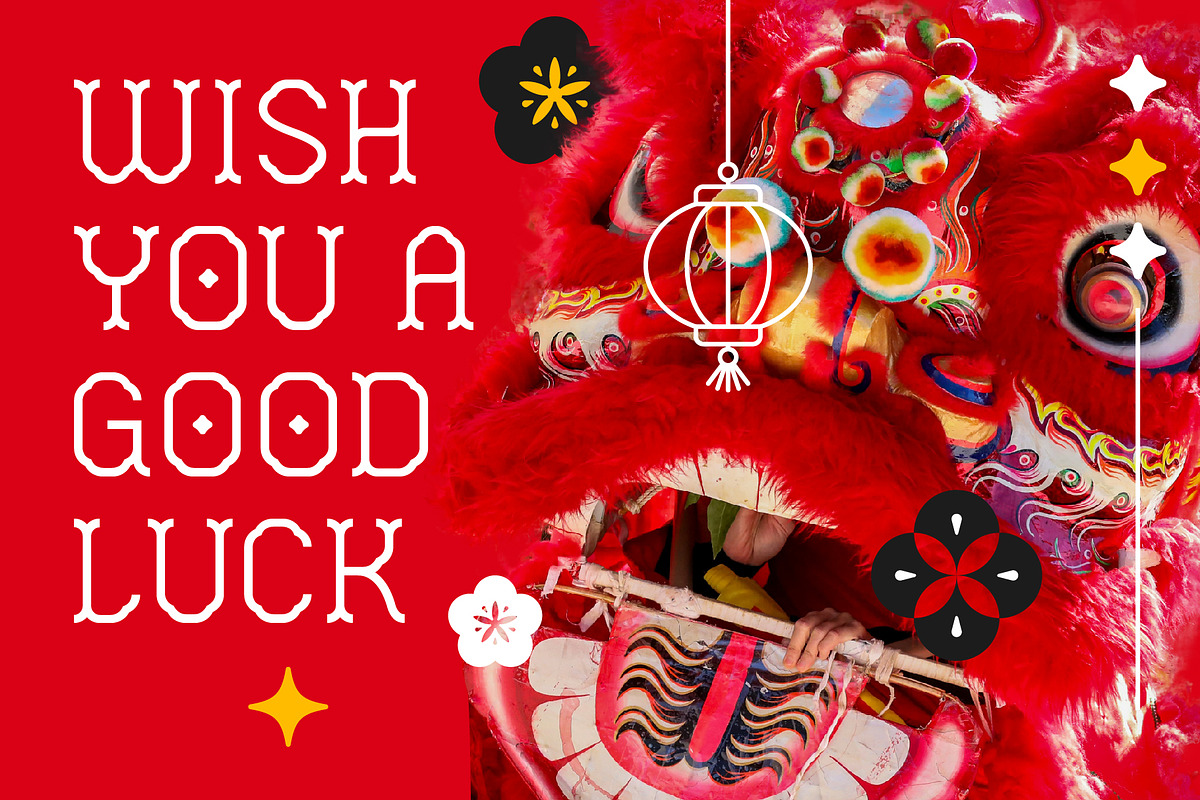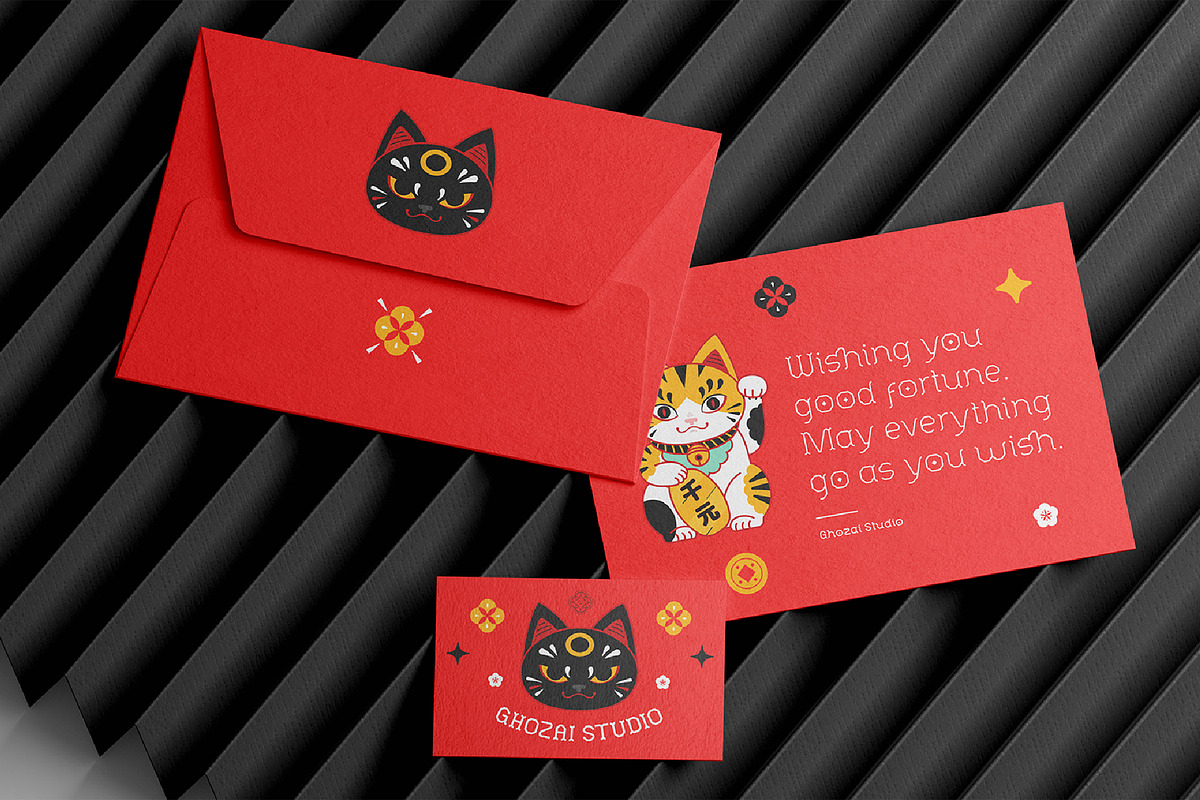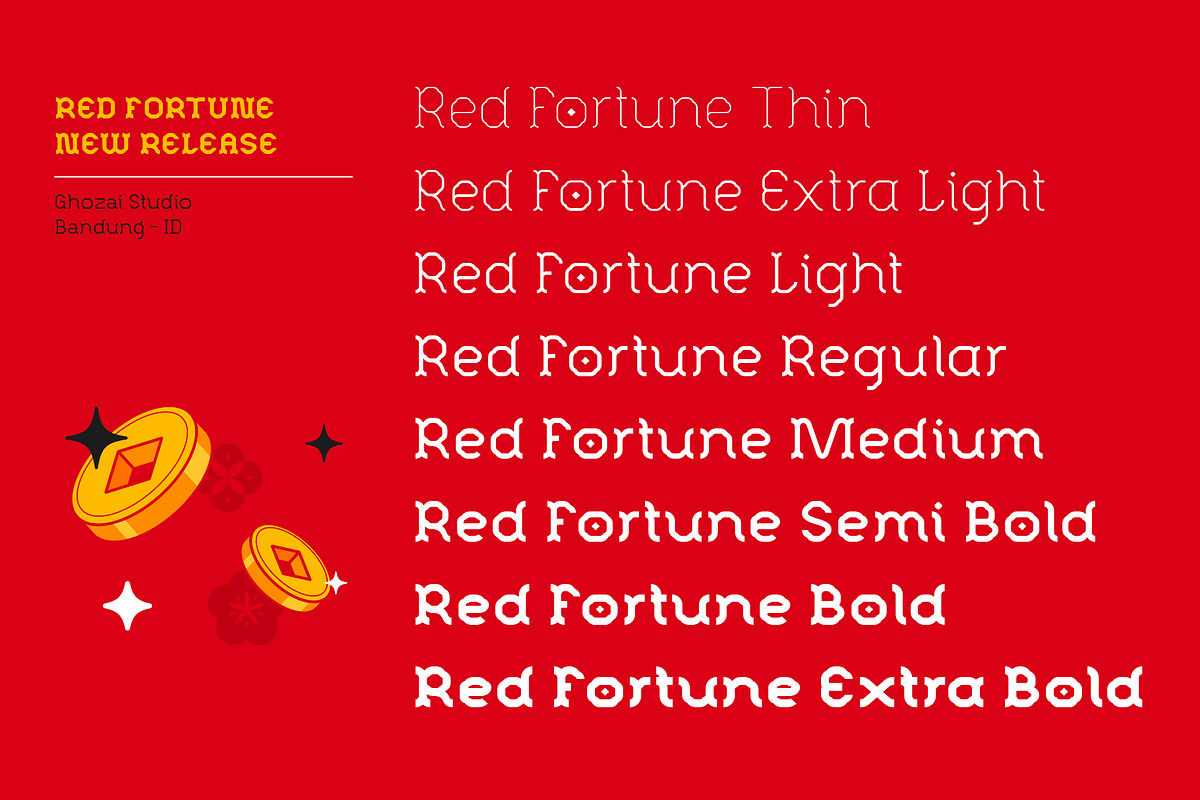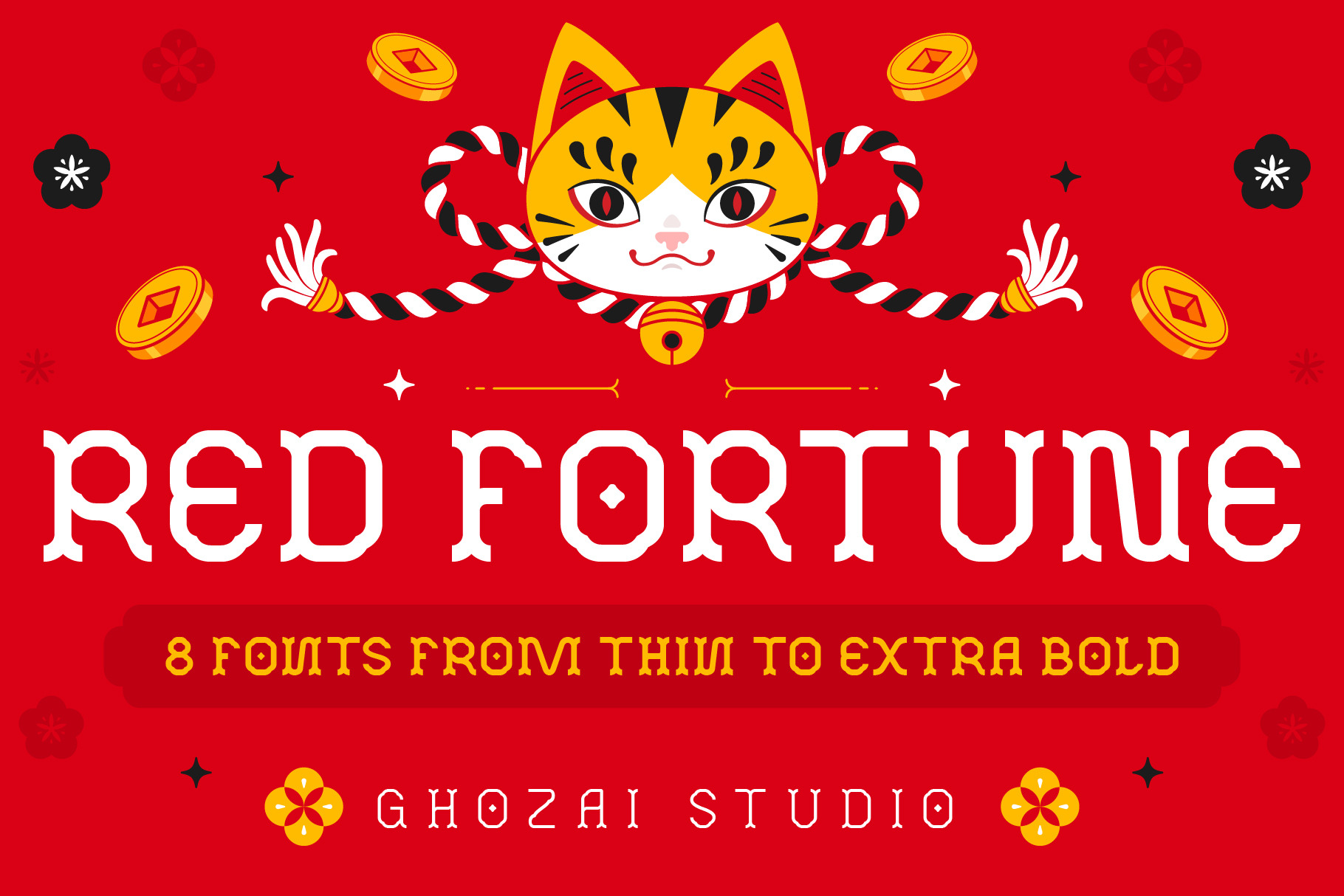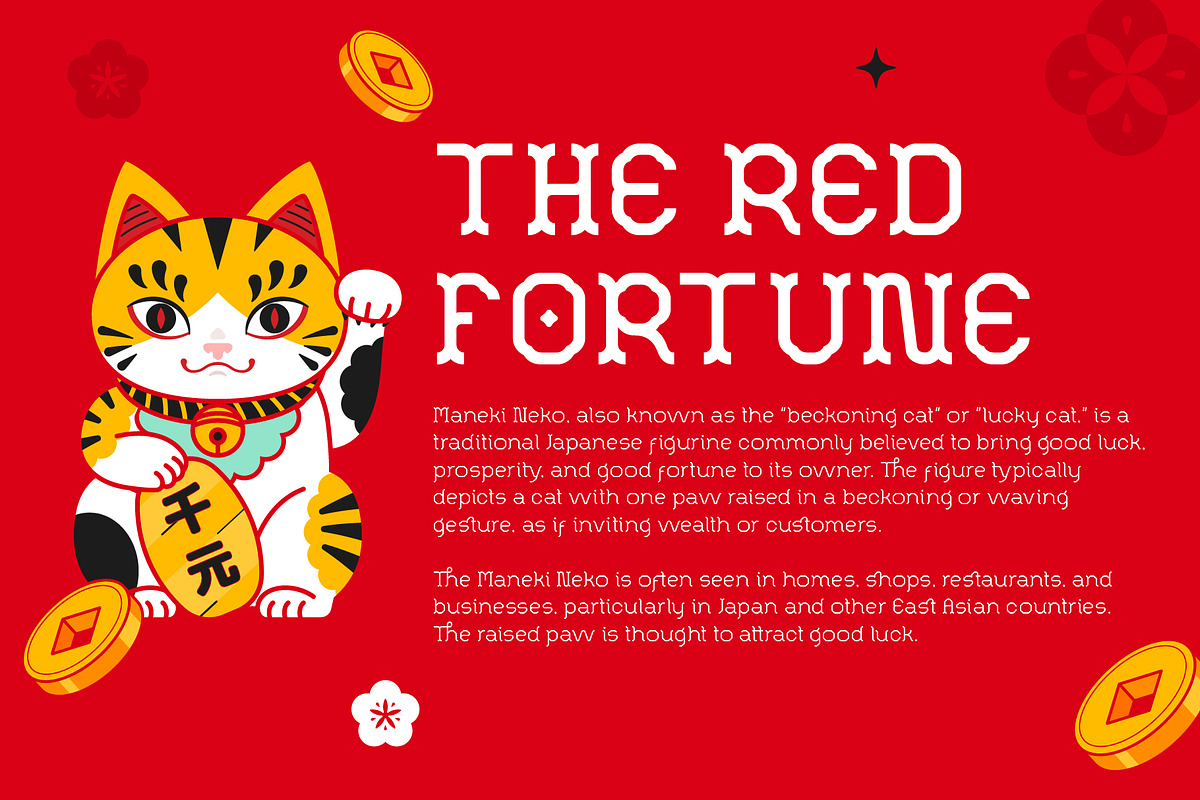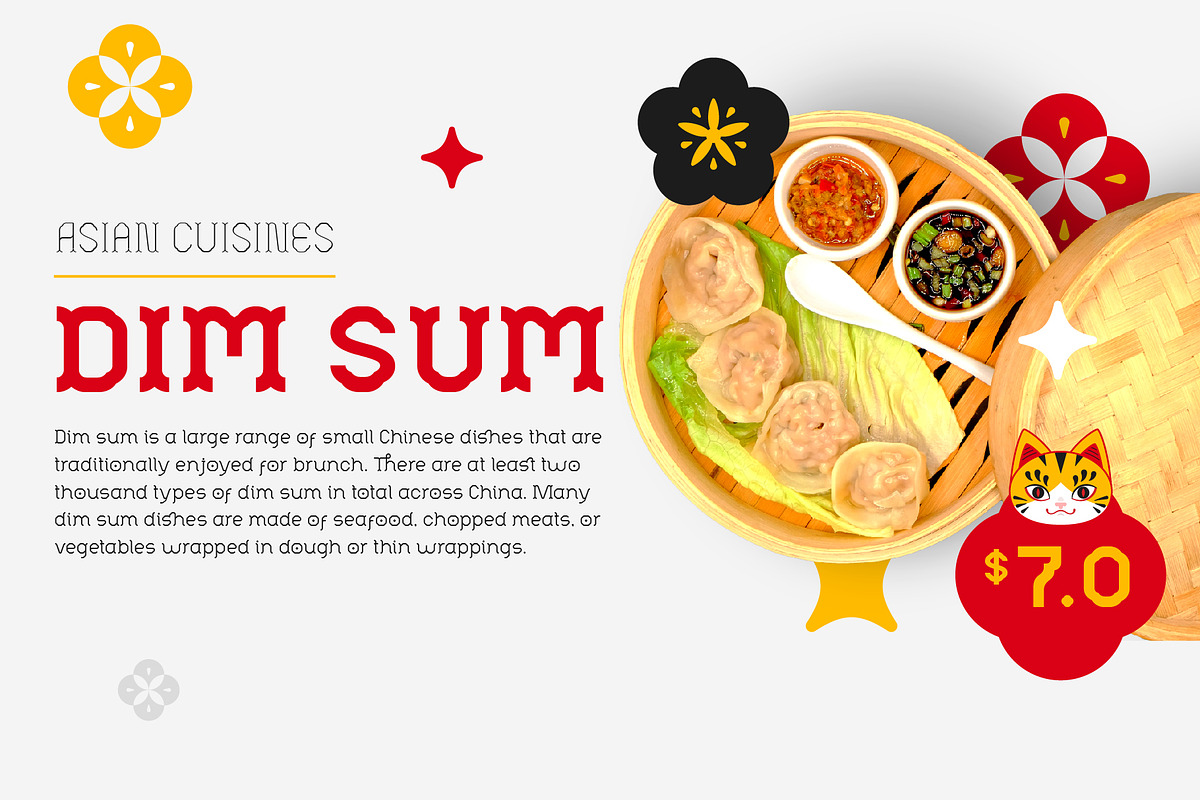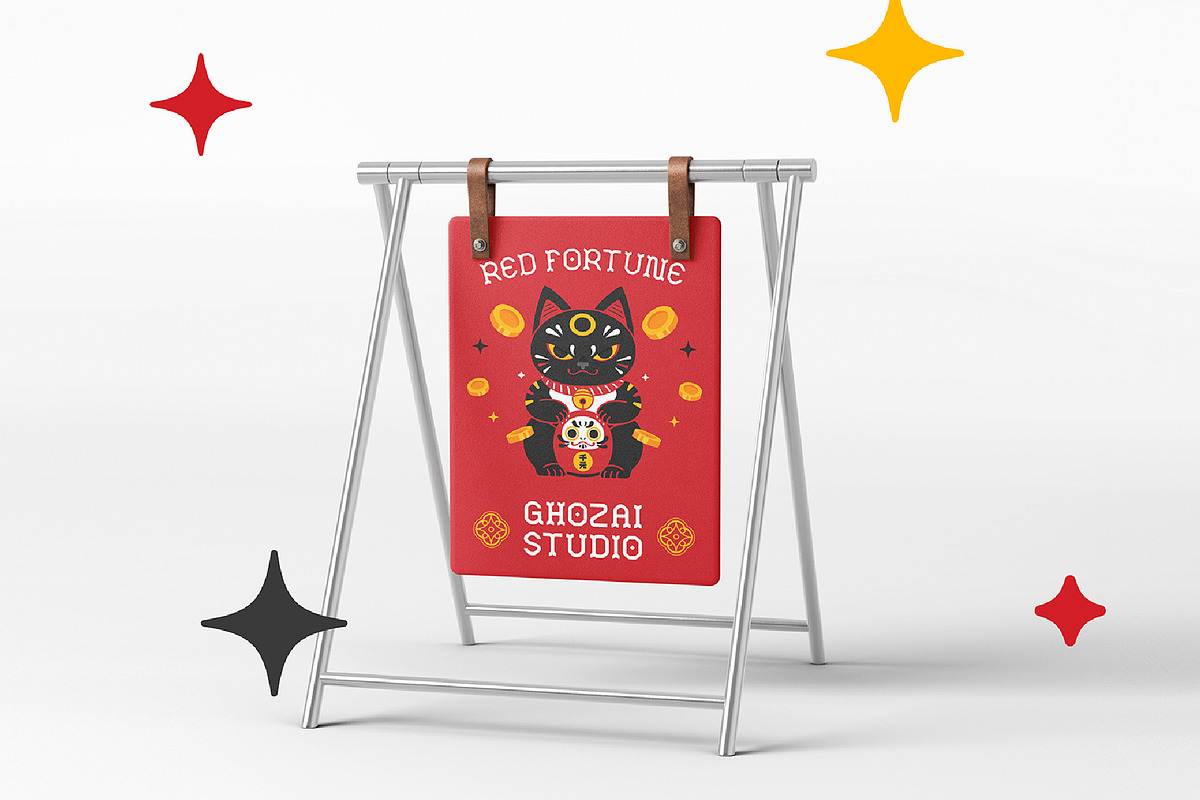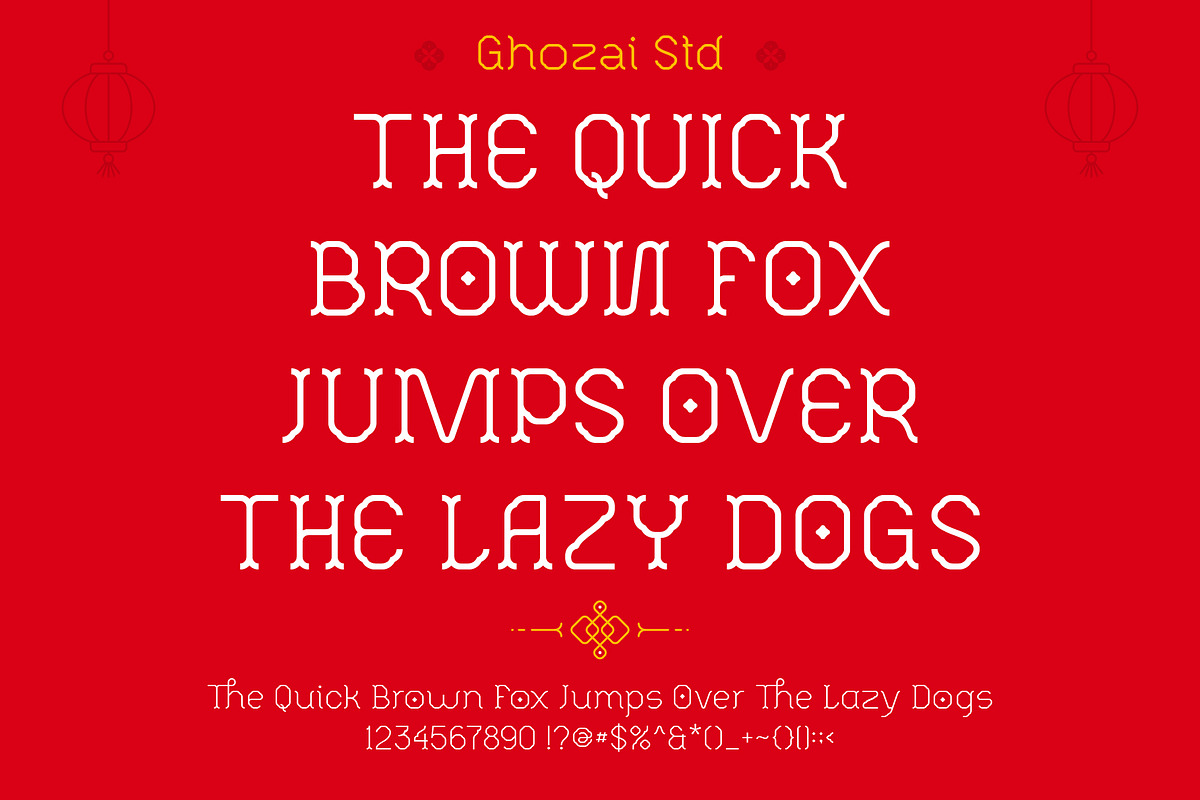
Red Fortune - Asian Inspired Font
Red Fortune is a captivating font inspired by the rich patterns and cultural heritage of East Asia, drawing influence from both Chinese and Japanese traditions. It blends traditional elegance with modern flair, infusing personality and vibrancy into any design. With 8 distinct styles, ranging from thin to extra bold, Red Fortune offers incredible versatility. Its broad selection of weights makes it perfect for everything from bold headlines to intricate text paragraphs. Whether crafting a brand identity, designing a poster, developing a website, creating a logo, or working on any project with a traditional flair, Red Fortune brings a unique touch to every design.